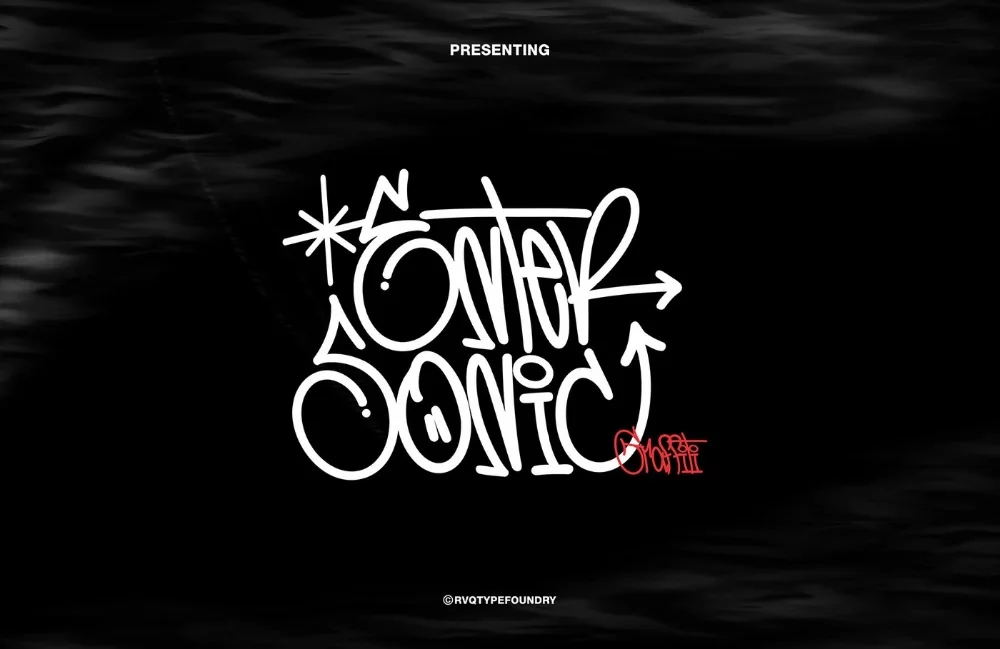
Sonic Wave Graffiti Font
Among the graffiti alphabet font options in this library, this alphabet is the one worth trying first. Rippling letterforms that rise and fall like a waveform. Musical without using a single note icon.
The baseline curves gently through each word and stroke widths pulse from thin to thick and back, producing a visible rhythm across a line of text. It reads best in short phrases.
A natural fit for playlist covers, club flyers, podcast artwork, and audio-brand merch.